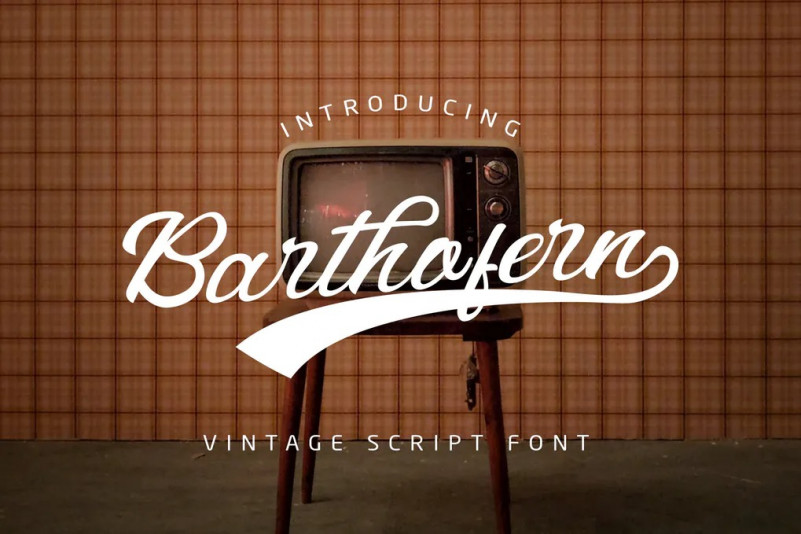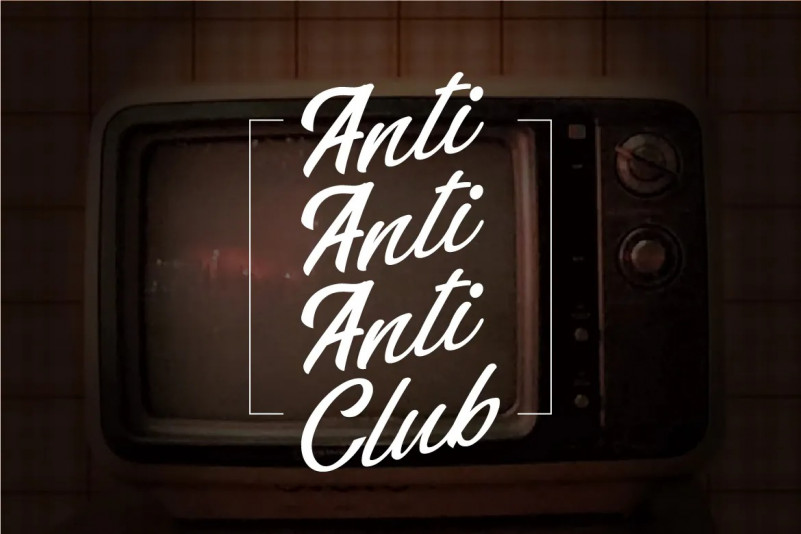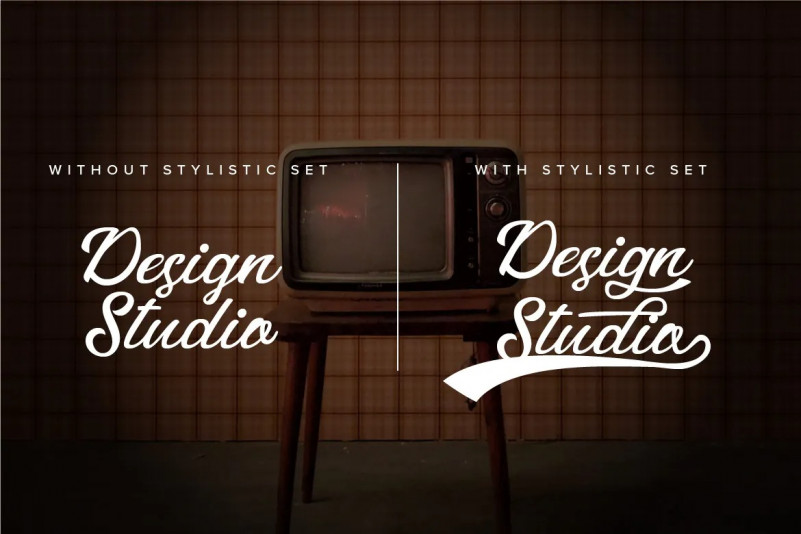
Barthofern Font
Barthofern is a font created with retro style and to fit to use as logo or branding project. It features a unique style and will add a vintage & retro feel to your upcoming projects. Get inspired by its unique feel and use it to create logo, product packaging or posters and many more!